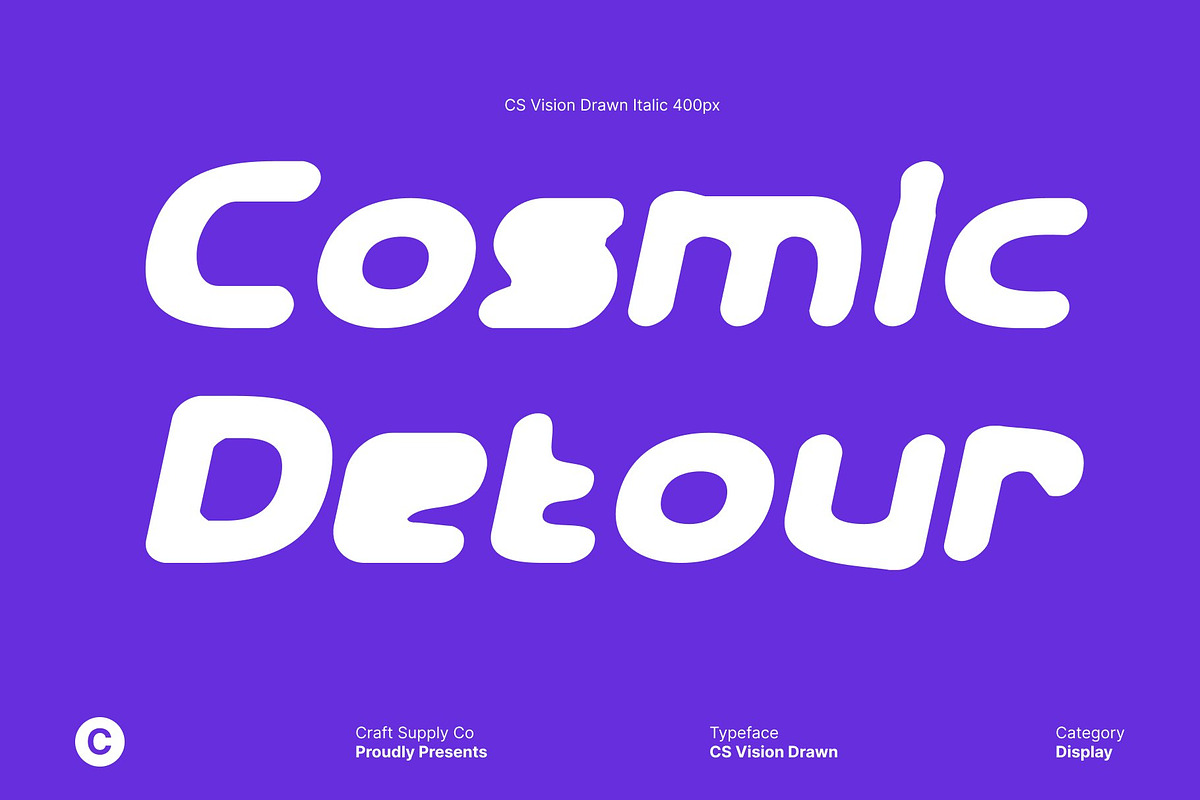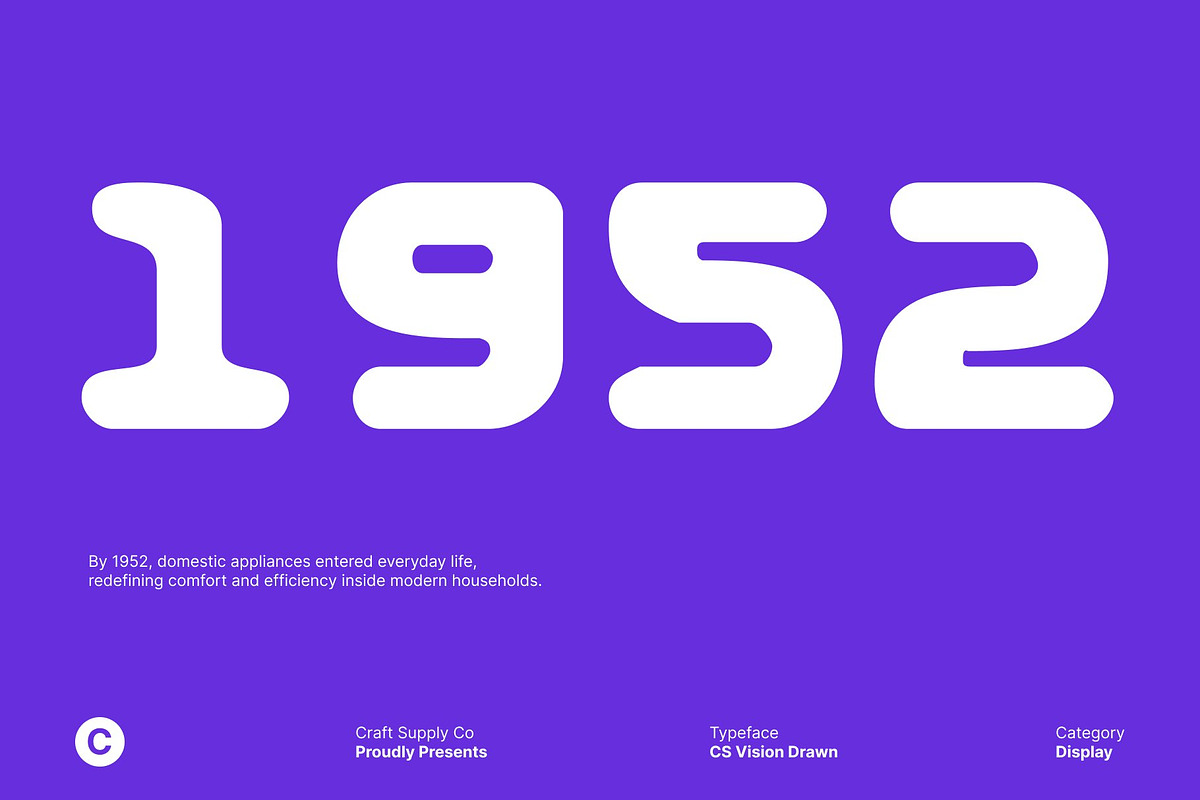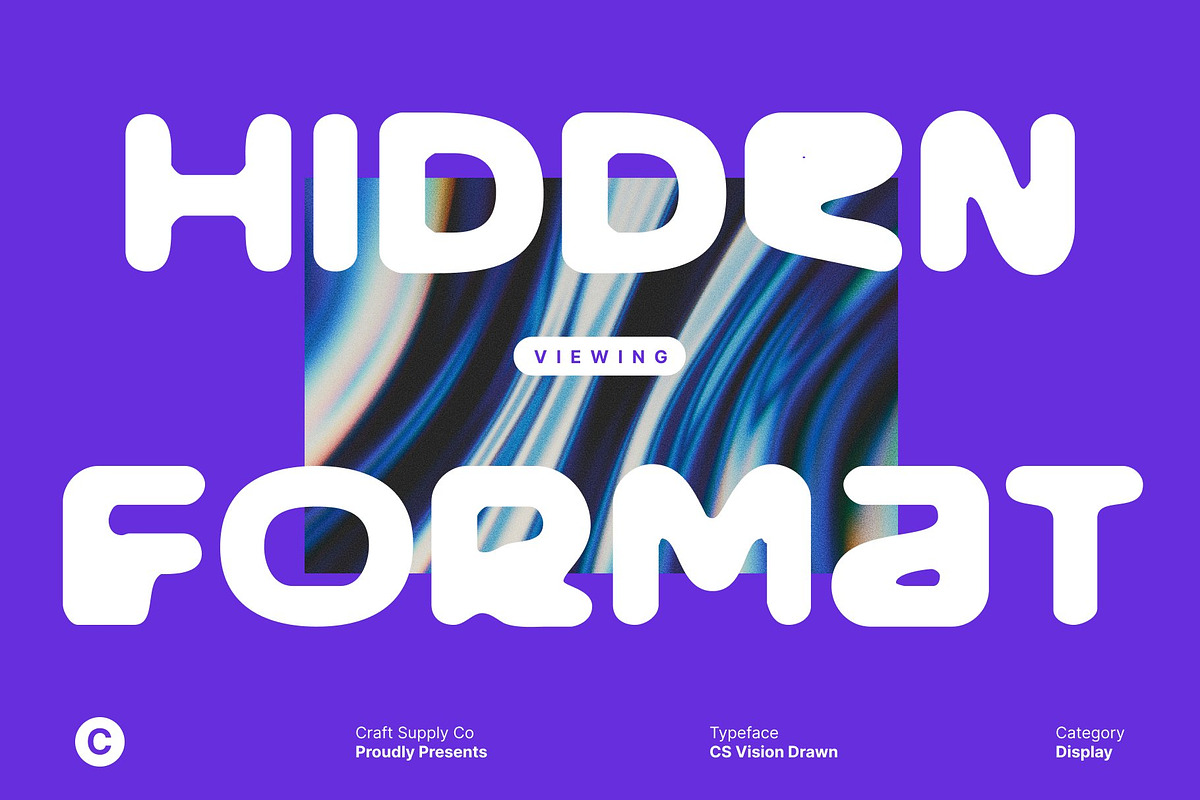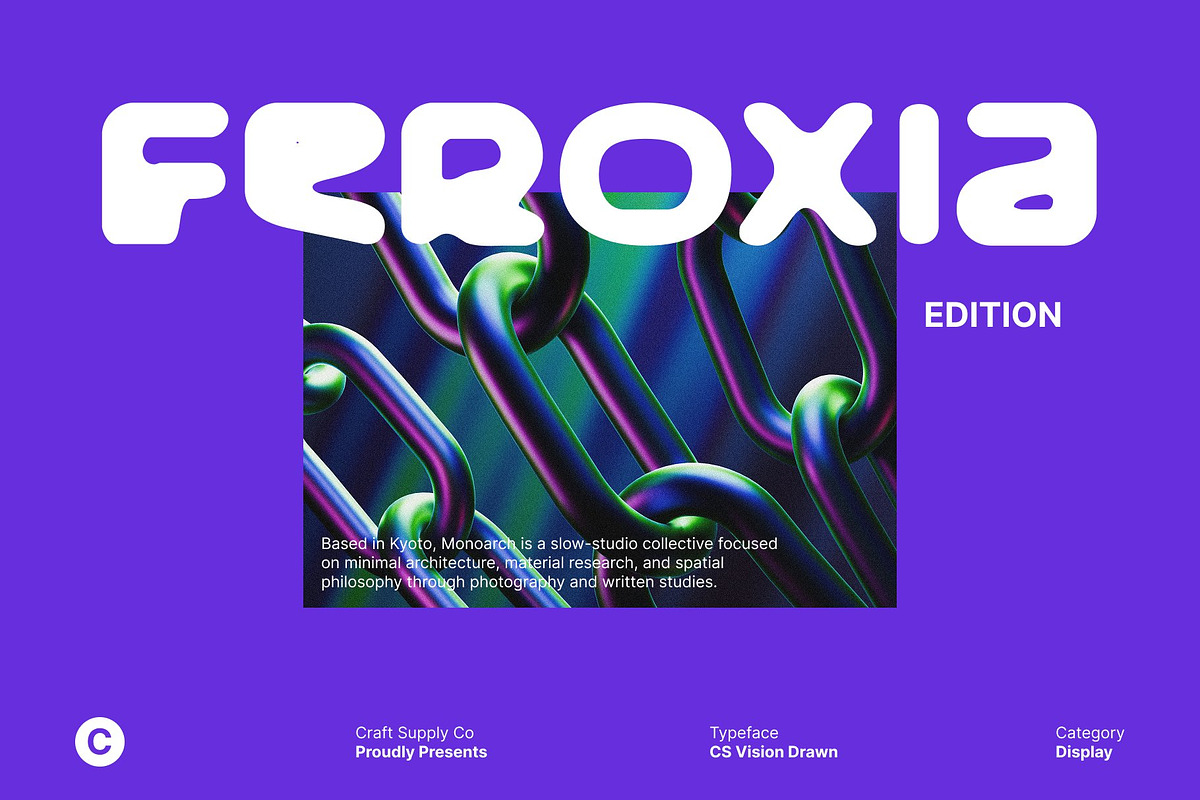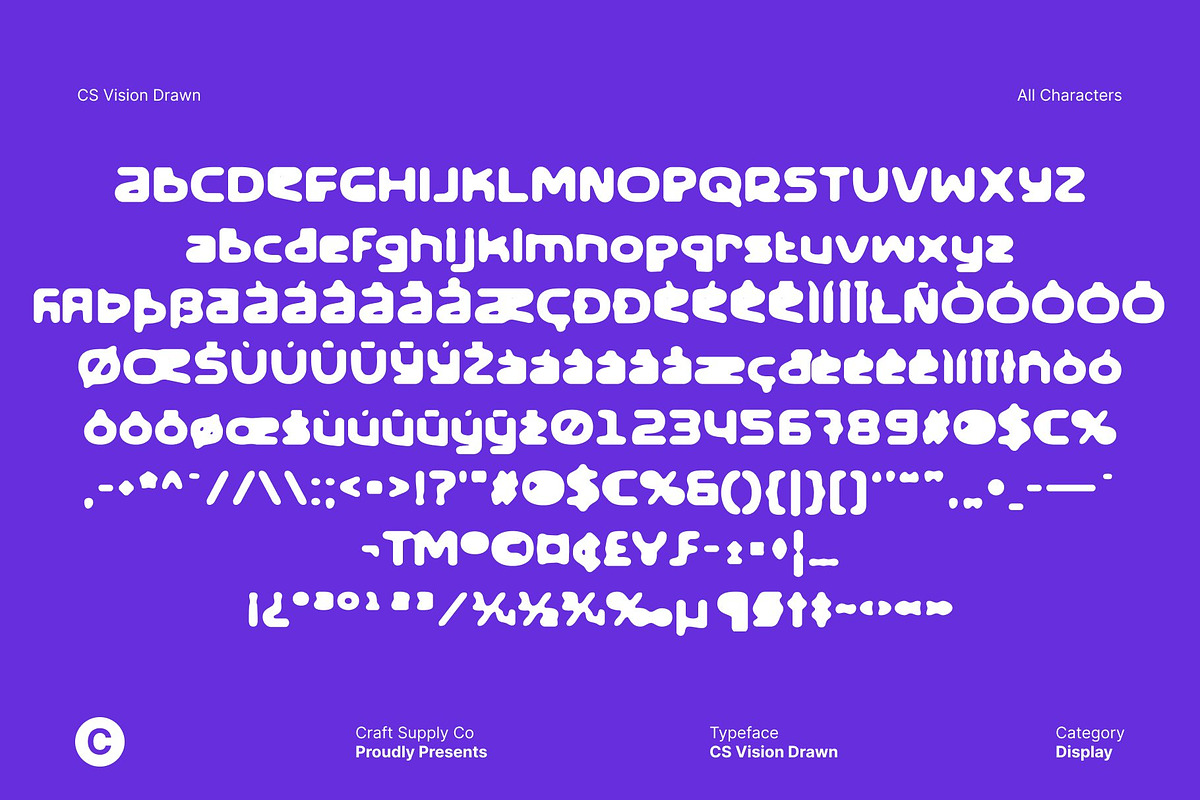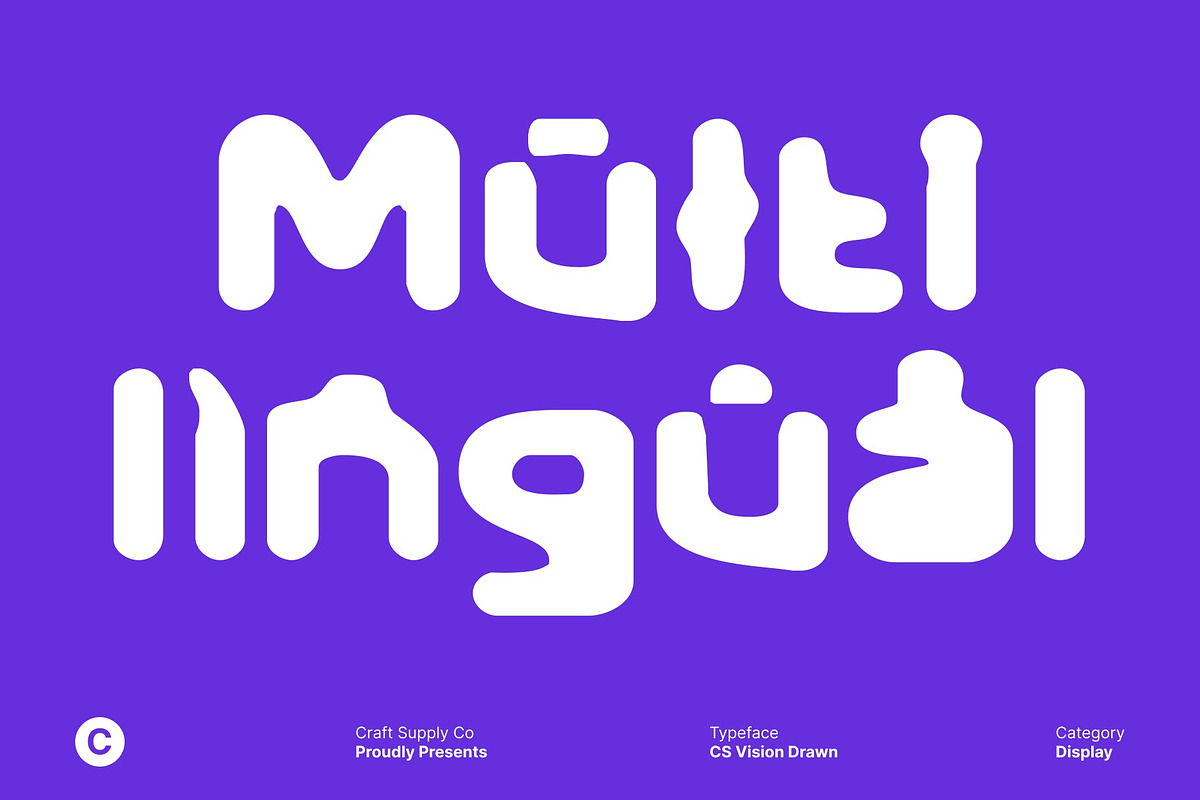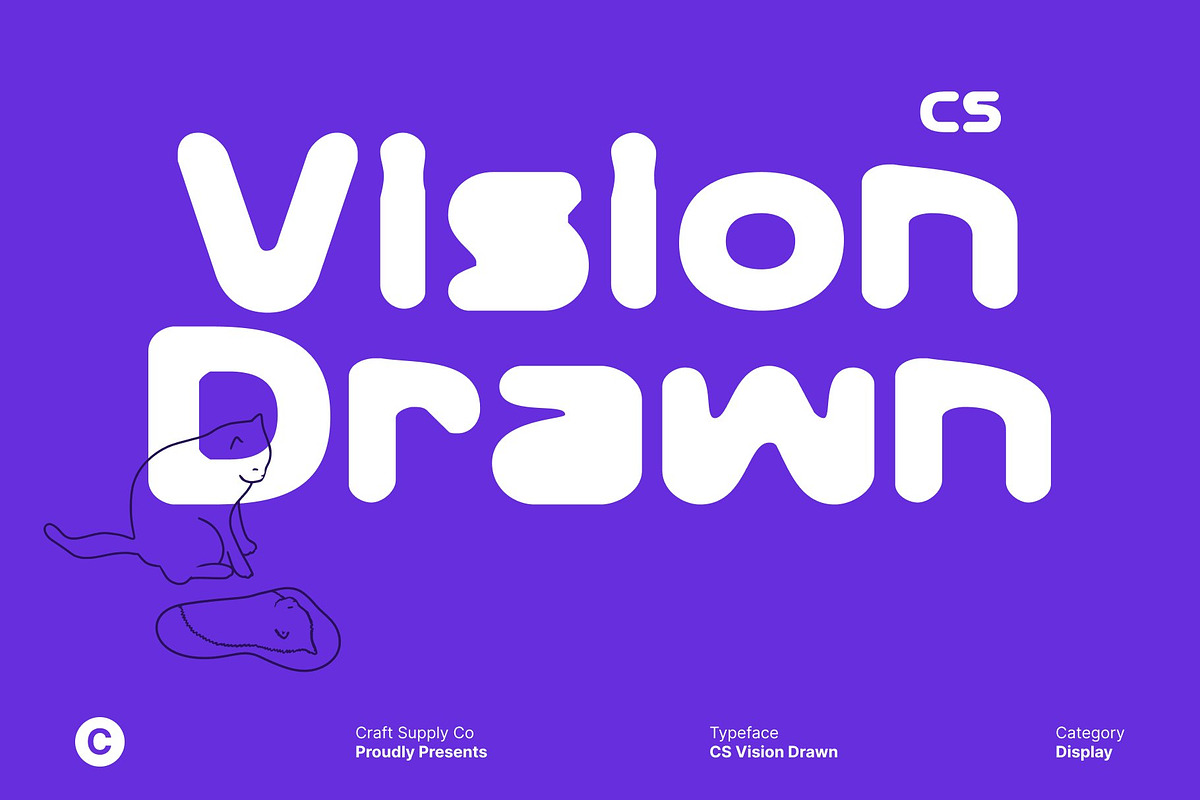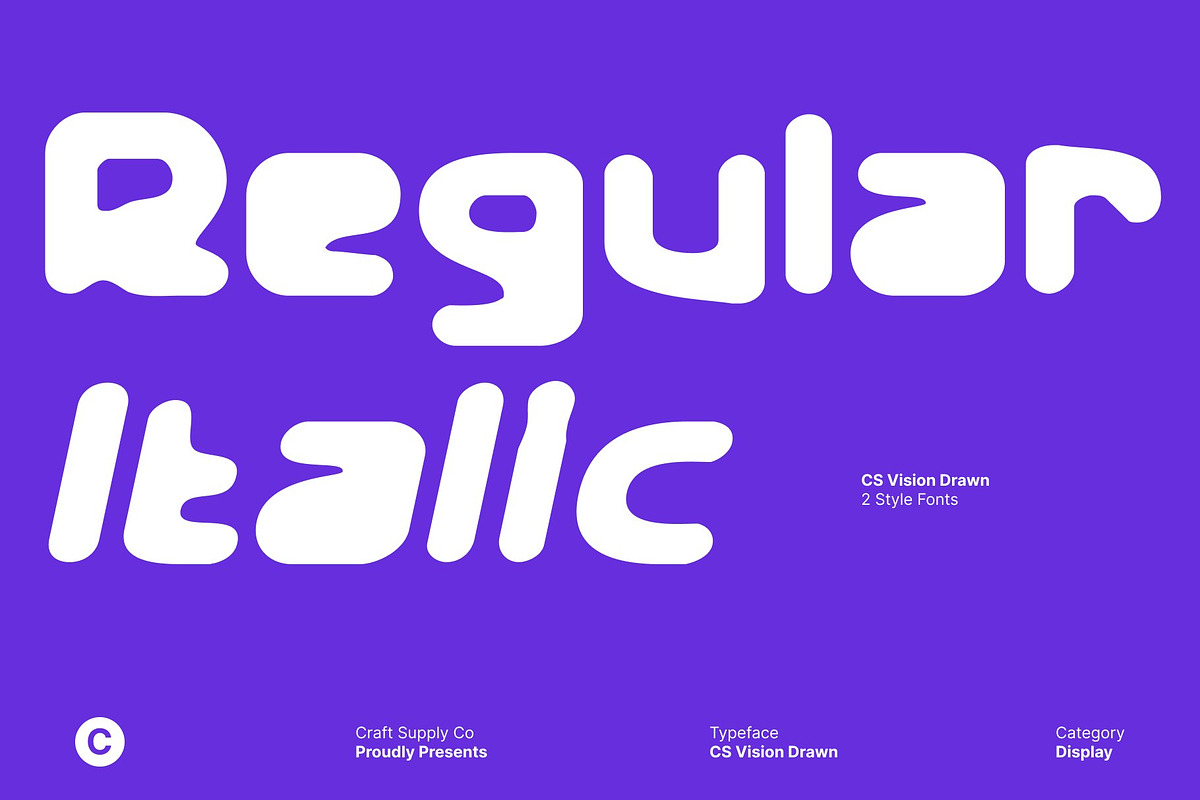
CS Vision Drawn
CS Vision Drawn – Techno Display Font with Hand-Drawn Futurism
Display Sans Serif with Techno Geometry This is a bold display sans-serif font built on futuristic techno principles and strong geometric construction. Sharp angles, clean cuts, and structured forms define its visual language, creating a distinctly modern and digital-forward appearance. The condensed, precise shapes give the font a powerful silhouette that feels engineered for contemporary and future-focused design.
Futuristic Energy with Artistic Texture While its structure is rooted in high-tech aesthetics, the drawn effect introduces an artistic, handcrafted texture that adds depth and individuality. Subtle irregularities soften the rigid geometry, creating a dynamic contrast between mechanical precision and human expression. This combination gives a unique edge futuristic yet expressive, digital yet alive.
Geometric Precision with Strong Visual Impact This font a maintains excellent clarity through its bold weight and symmetrical construction. The geometric forms ensure strong readability while delivering a commanding presence, especially in large display use. Headlines, titles, and key visuals gain intensity and confidence, making the font ideal for designs that must stand out instantly.
Perfect for Tech, Gaming, and Futuristic Branding Designed for modern creative industries, works exceptionally well for tech branding, gaming titles, esports visuals, sci-fi posters, UI concepts, and digital music artwork. Its fusion of techno geometry and hand-drawn texture bring